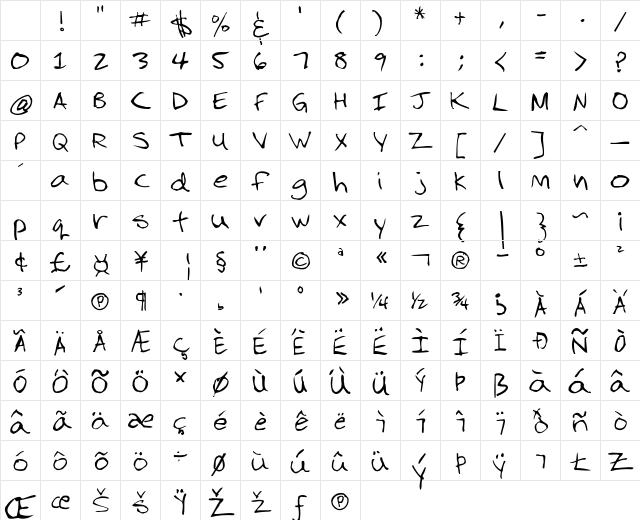
2Dumb Regular Free Font
2Dumb Regular
Foundry: Michael Tension
Design Context for 2Dumb
2Dumb is a composed and adaptable typeface that performs quietly and consistently across a wide range of design contexts.